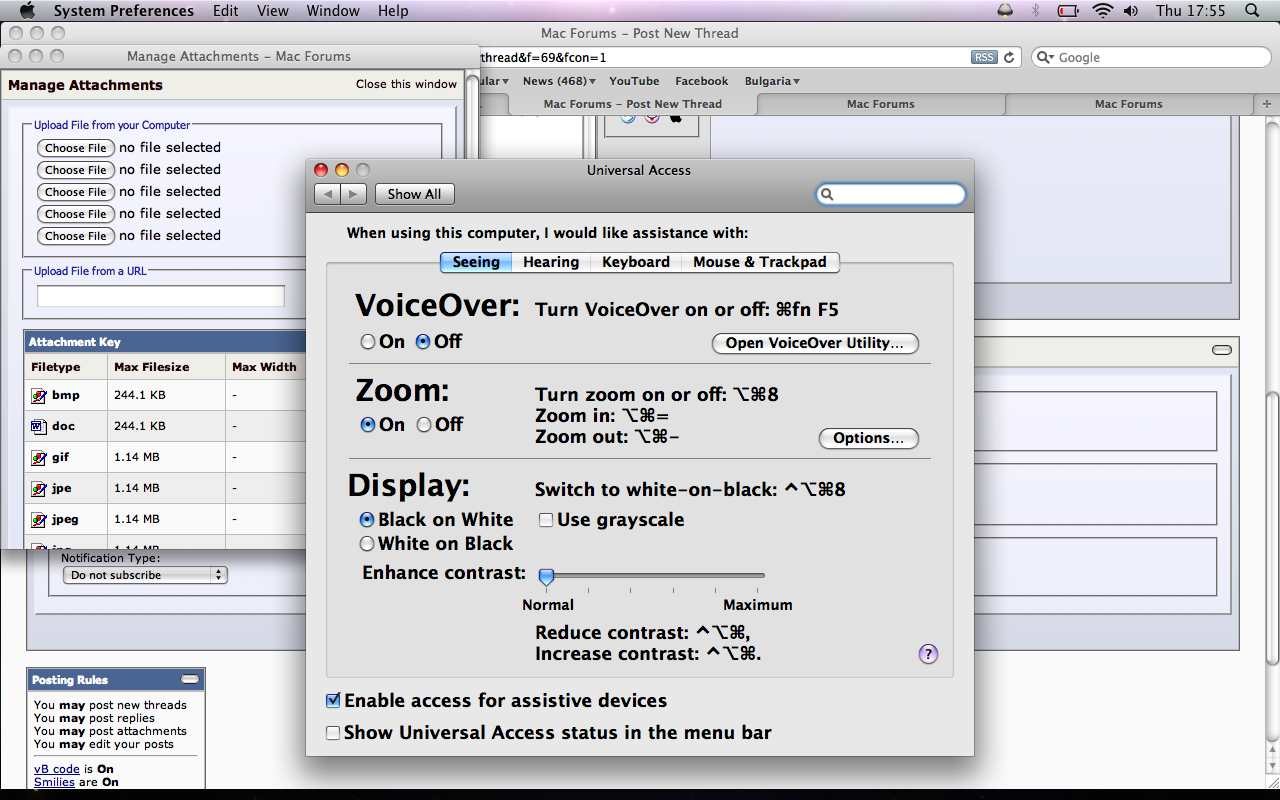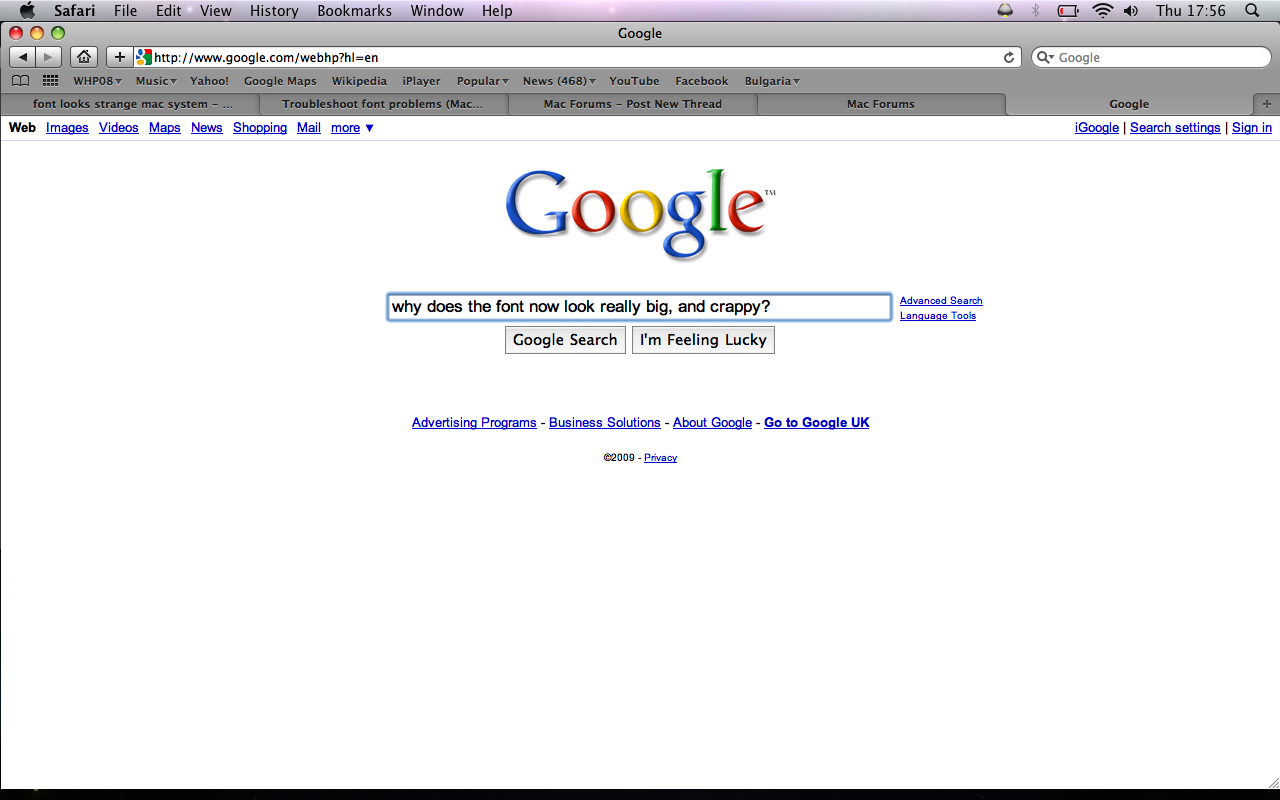
Sorry if this seems like a trivial question, its just that i cant seem to find the resolution anywhere, and its really bugging me out!
On certain pages, say google on safari, and some system screens, such as universal access, my fonts look REALLY odd, much bigger than usual, quite clunky
Can someone please help me fix it, to the way it was before?
I believe that on Universal Access those fonts are intentionally larger then the rest for people who are visually impaired. And may not have the best viewing. And it seems to me that Google made some changes on their front page in the past few days, the much larger font and the weird aqua buttons drive me up the wall.
Your screenshots look 100% normal.
That's how the Universal Access prefpane is supposed to look (and has always looked).
Google recently made changes to their page so that the text is much bigger and the buttons are different. Looks that way for everybody.